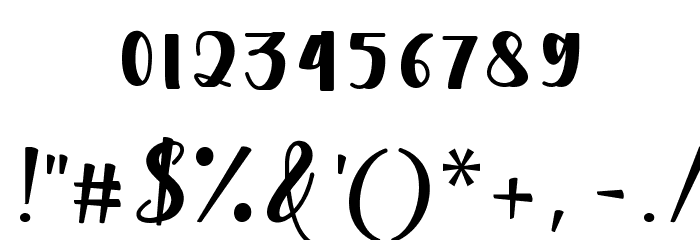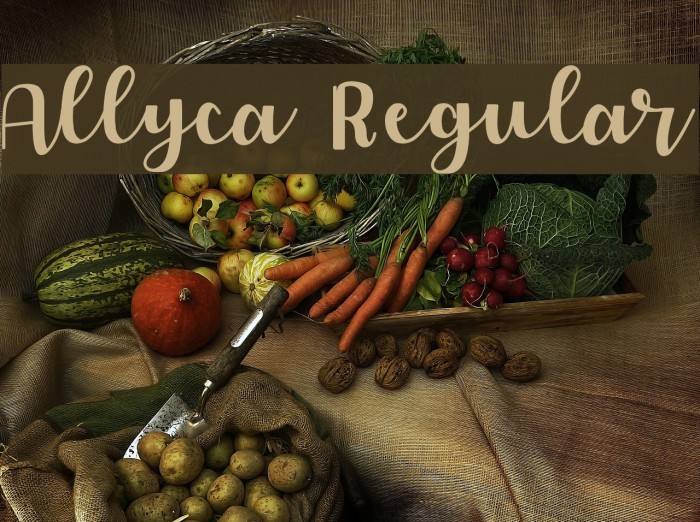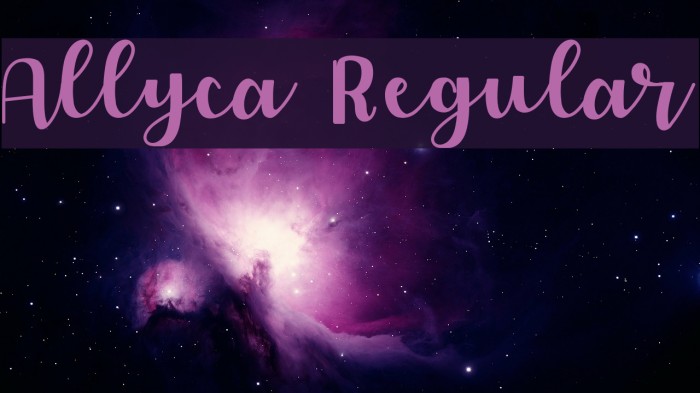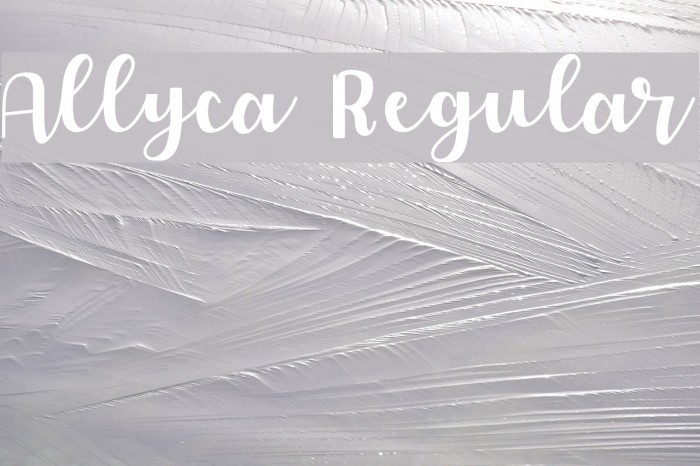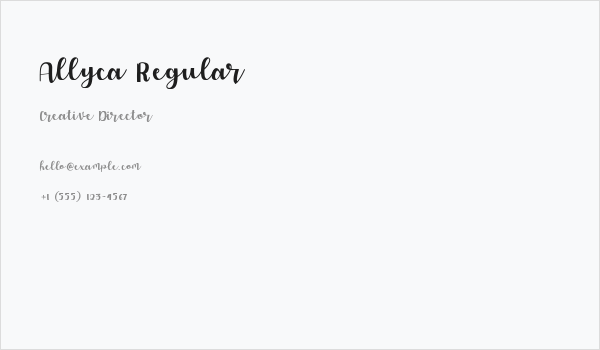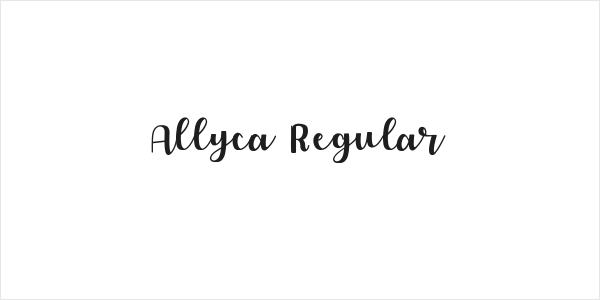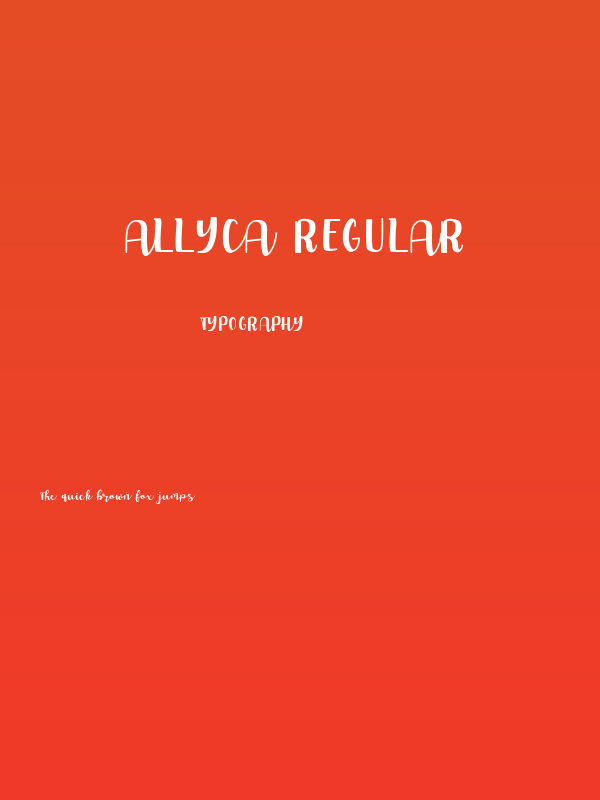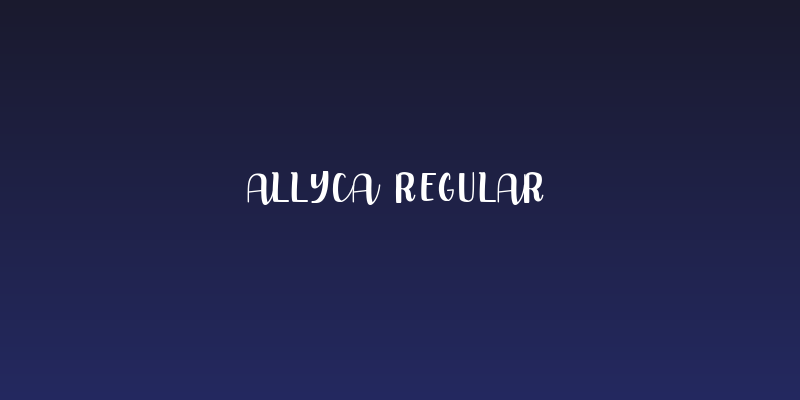
Allyca Regular Font
Allyca Regular Description
This font features a playful and modern script style with a handwritten feel. The uppercase letters are bold and dynamic, with a slight slant that adds movement and energy. The lowercase letters maintain a consistent flow, with smooth curves and rounded edges that enhance its friendly appearance. The numerals are clear and legible, designed to complement the overall style. Special characters are creatively integrated, maintaining the font's cohesive look. This font is perfect for projects that require a personal touch, such as invitations, greeting cards, or branding materials.
| Proposed Projects | Ideal for invitations, greeting cards, branding, and creative projects. |